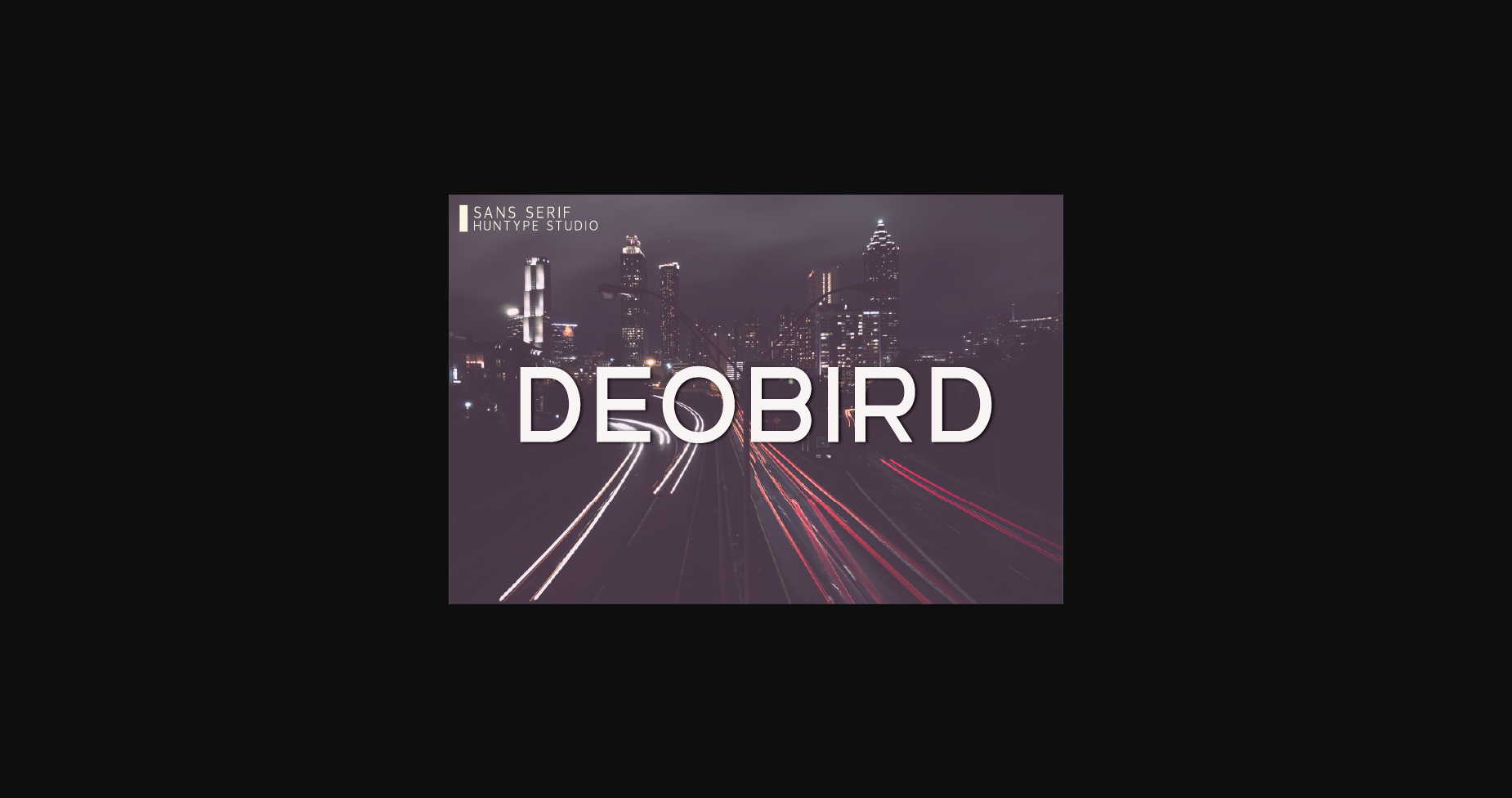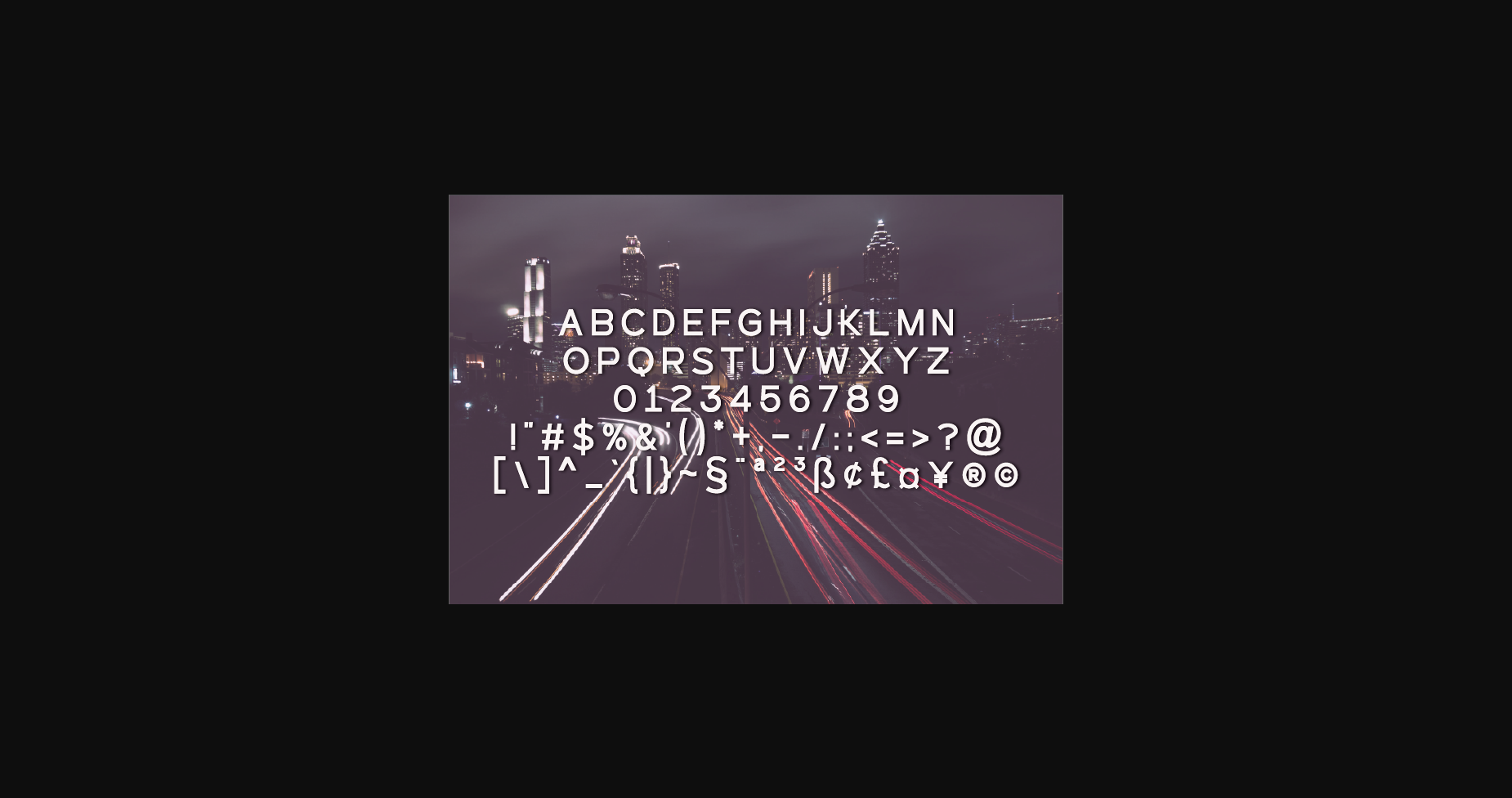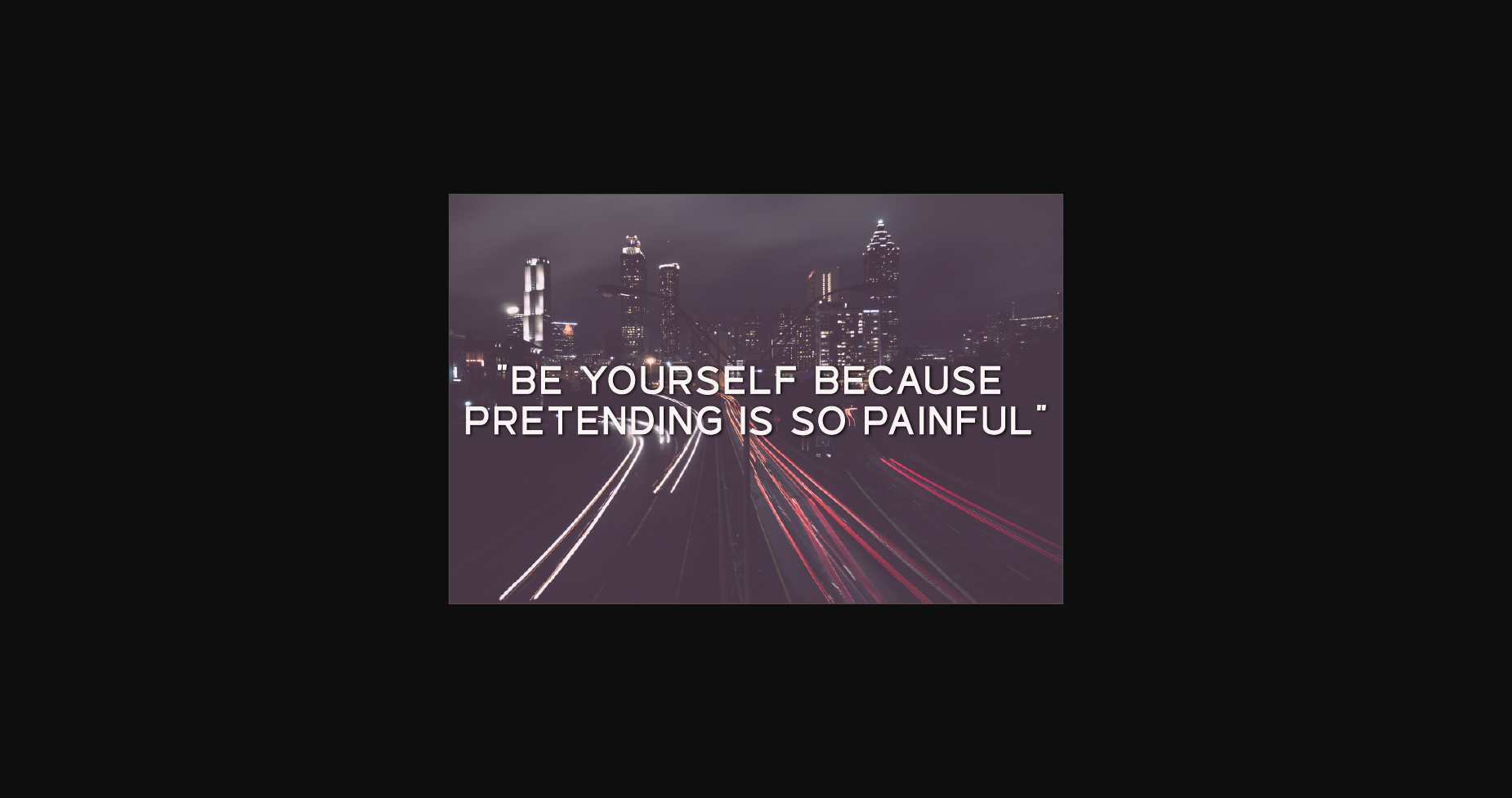
About Deobird Font
Deobird is a minimal and neat sans serif font. It can easily be matched to an incredibly large set of projects, so add it to your creative ideas and notice how it makes them stand out!